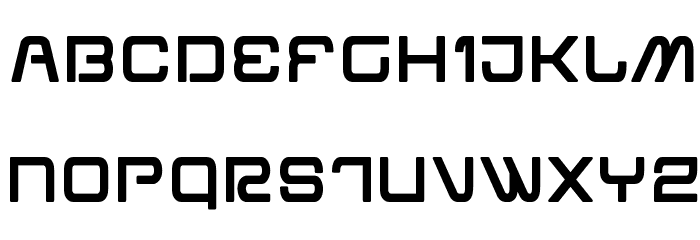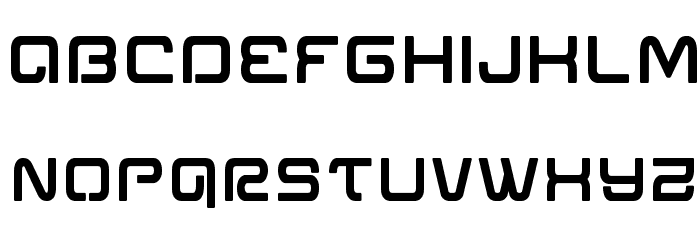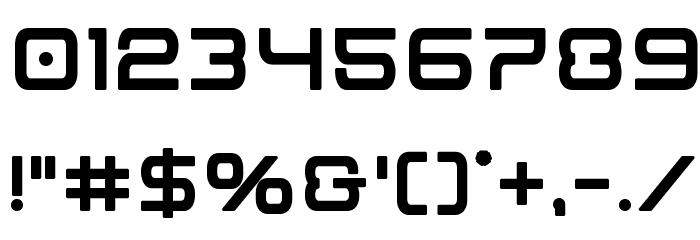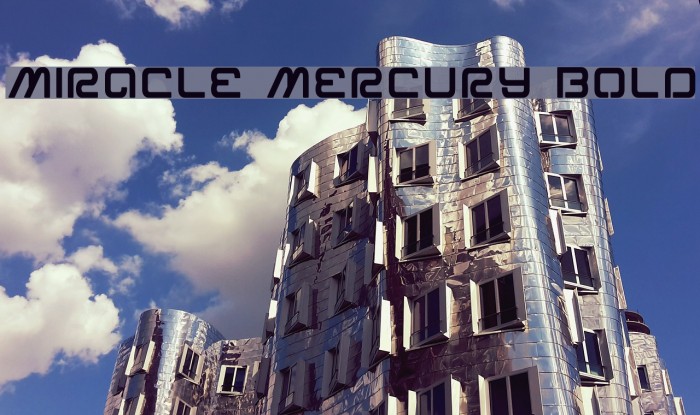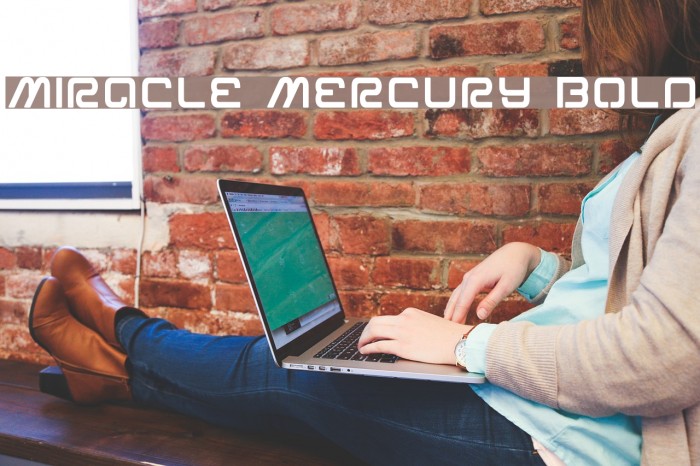
Miracle Mercury Bold Font
This font features a bold and futuristic design with geometric shapes and rounded edges. The characters are uniform in width, giving a monospaced appearance, yet they maintain a modern and sleek aesthetic. The uppercase and lowercase letters are distinct, with a consistent stroke weight that enhances readability. The numerals and special characters are designed to match the overall style, making them suitable for digital and print media. The font's unique style is ideal for projects that require a contemporary and technological feel.
A bold, futuristic font with geometric shapes and rounded edges.
- Proposed Projects: Ideal for technology branding, digital interfaces, video game design, and modern advertising.
- Overall Style: Futuristic
- Use Case: Headlines, Logos, Digital interfaces